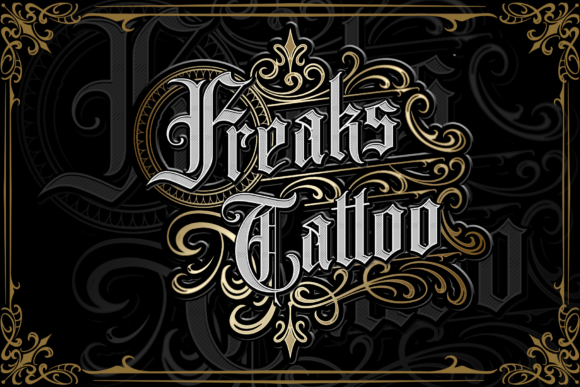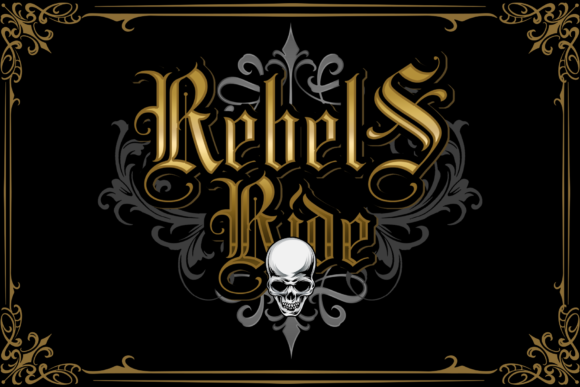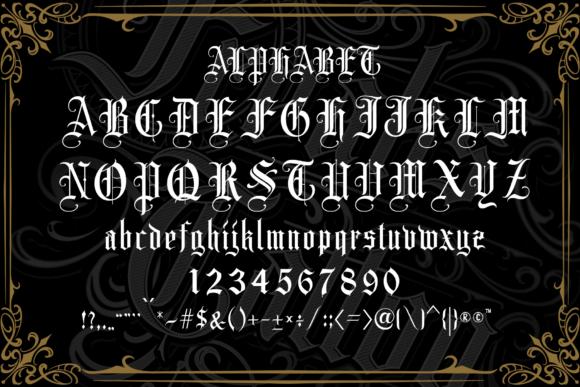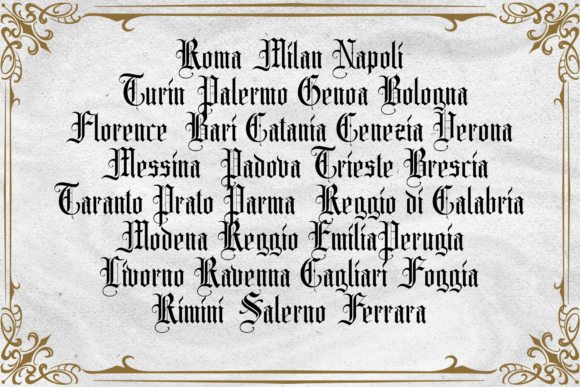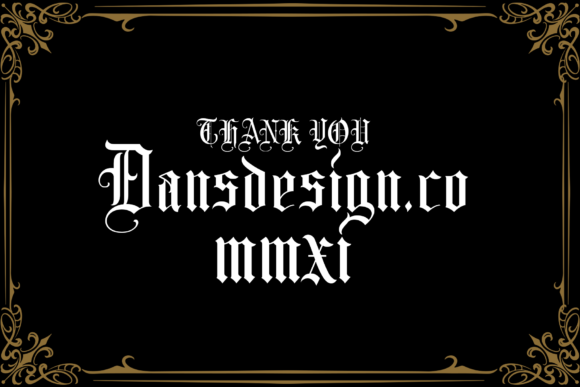
Introduction to Monshiner Font
Monshiner is a bold and highly detailed blackletter font.
No matter the topic, this font will be an incredibly asset to your fontsโ library, as it has the potential to elevate any creation .
Key Features of Monshiner Font
Why Choose Monshiner Font?
Monshiner Font offers exceptional quality and versatility, making it a valuable addition to your design toolkit. Whether you’re creating for personal projects or commercial use, Monshiner Font delivers professional results.